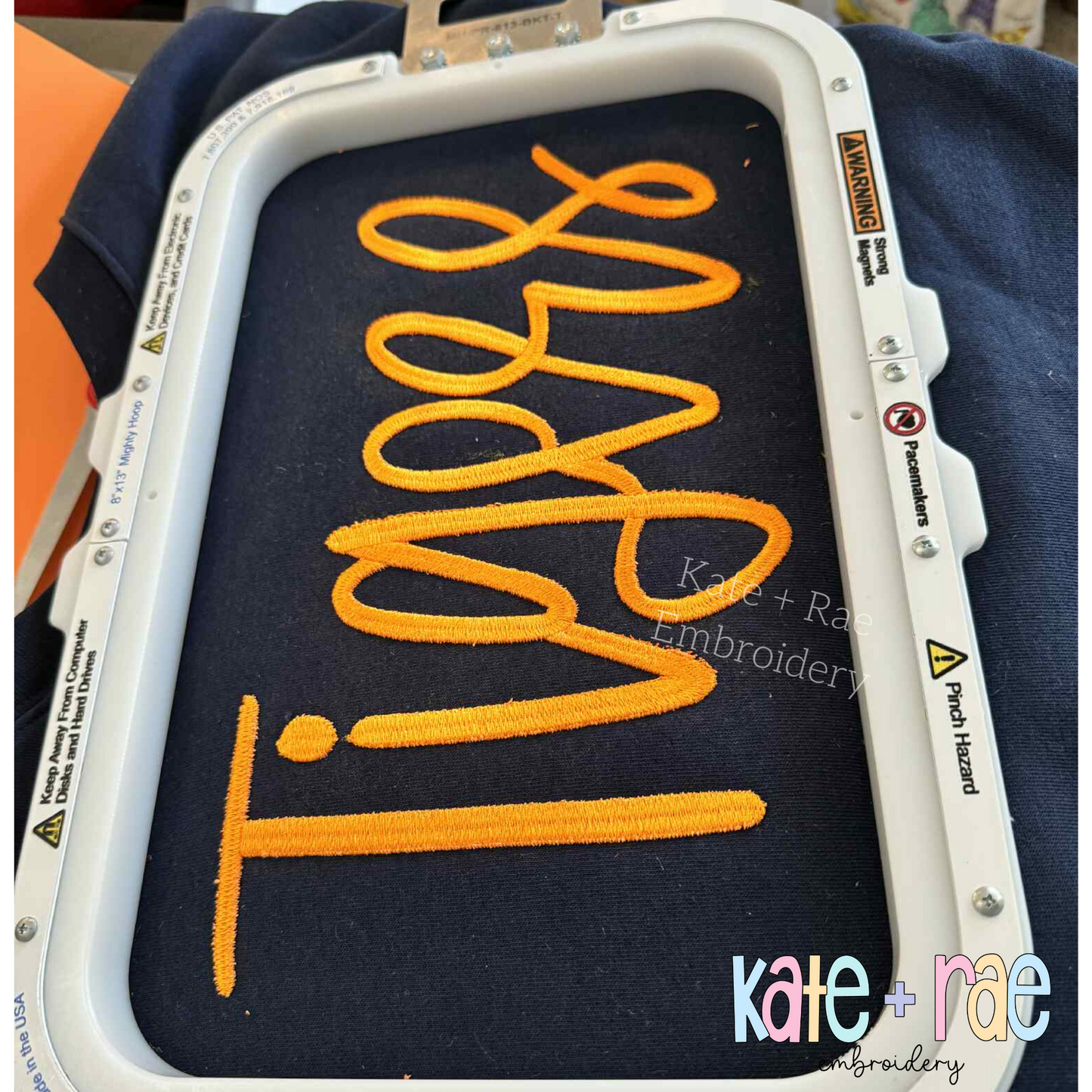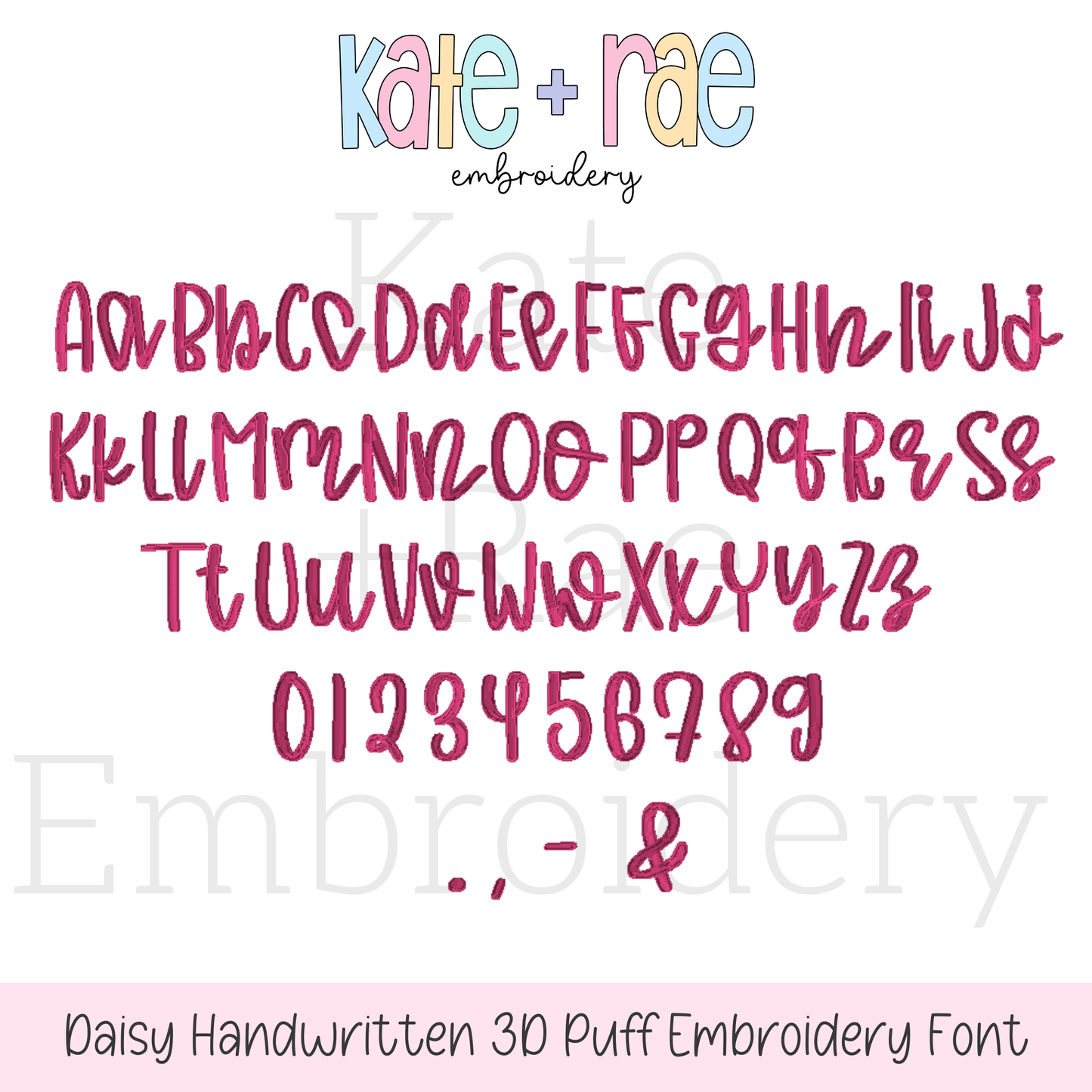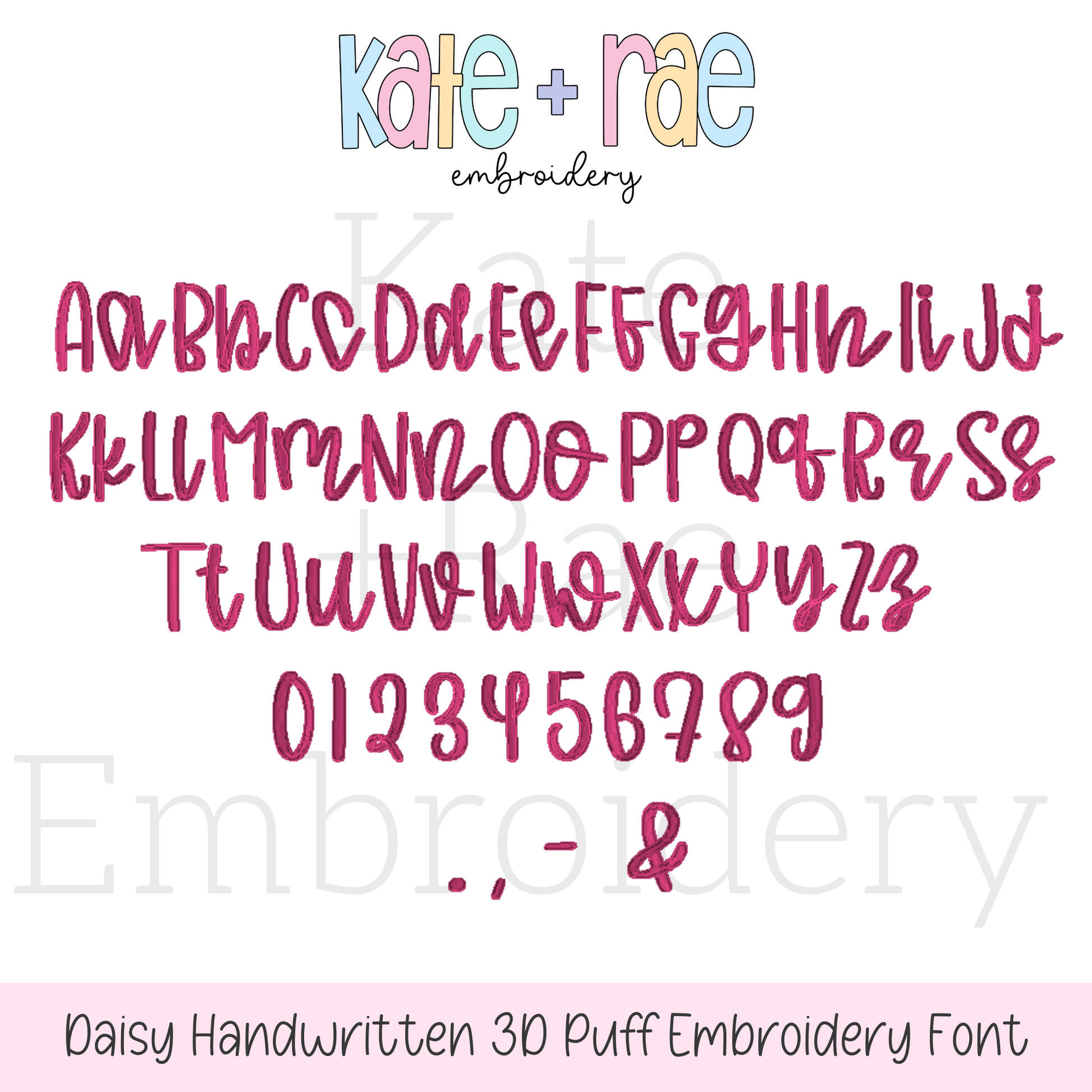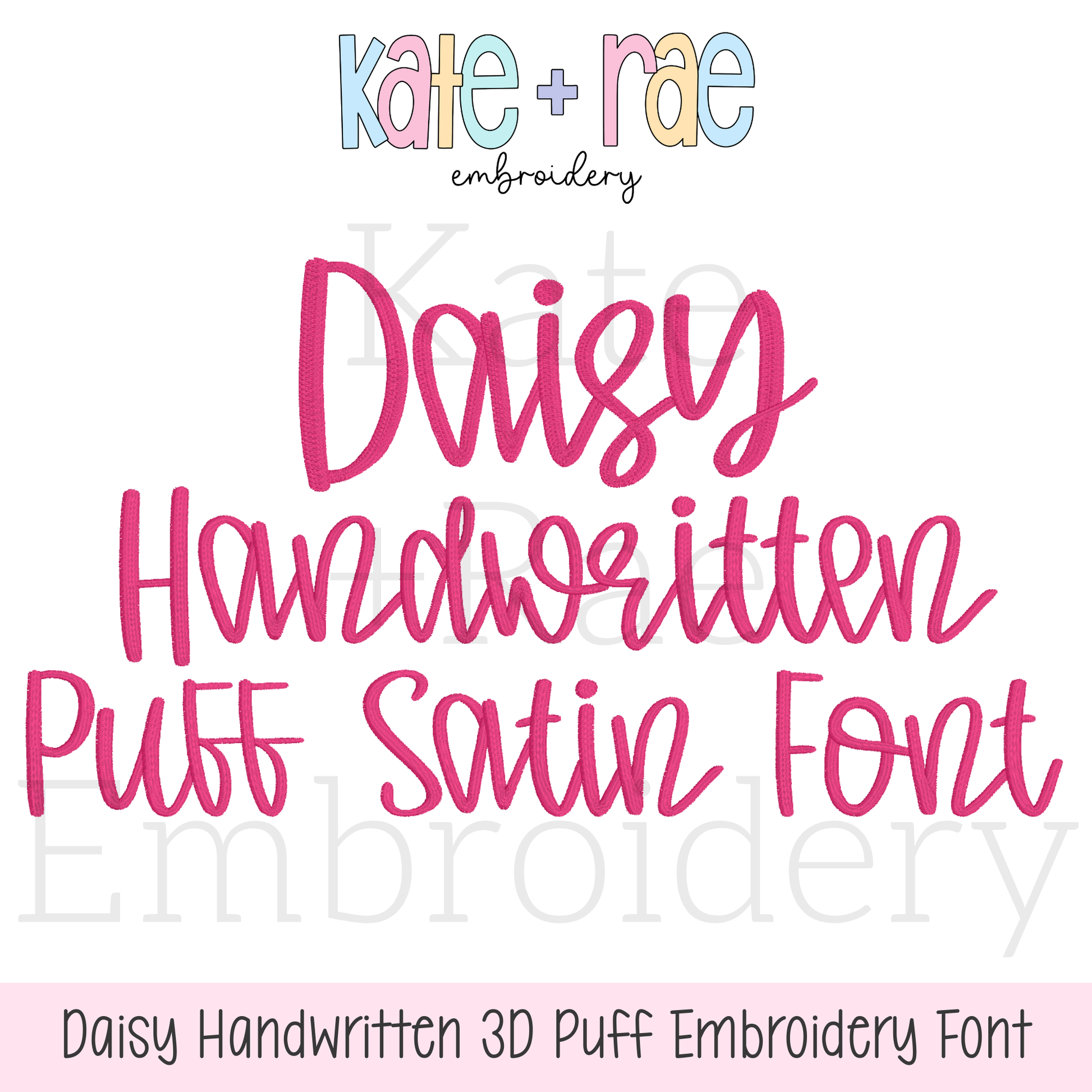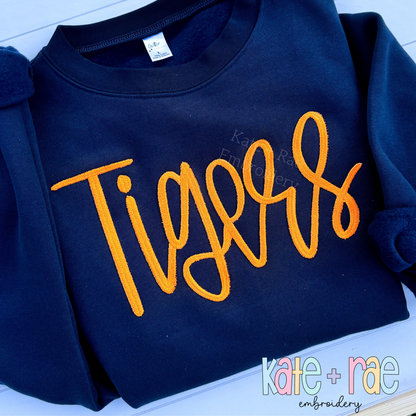
Daisy Handwritten Textured 3D Puff Satin Stitch Embroidery Font
THIS IS A TEXTURED 3D PUFF EMBROIDERY FILE. IT IS NOT A SMOOTH TRADITIONAL SATIN 3D PUFF FONT!